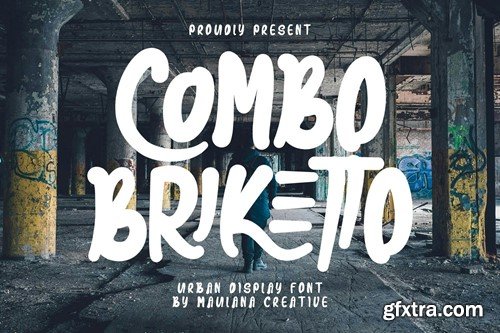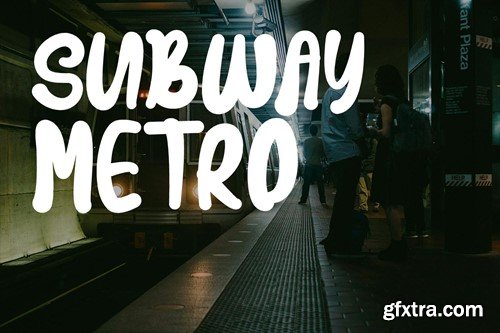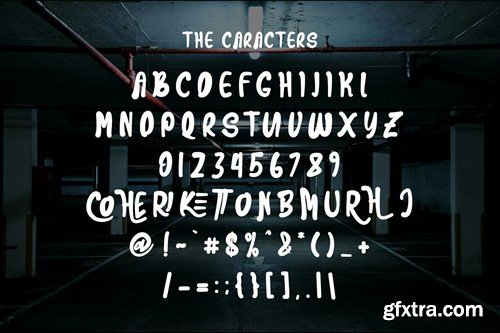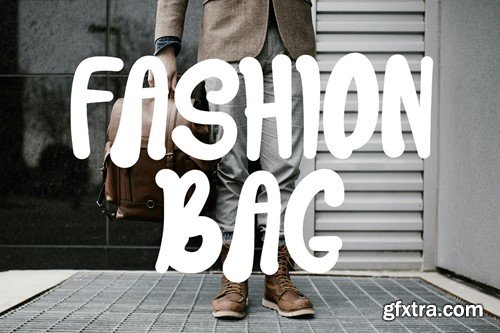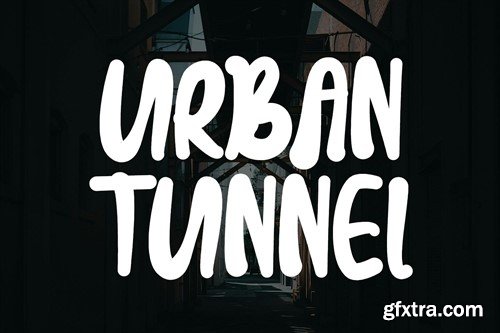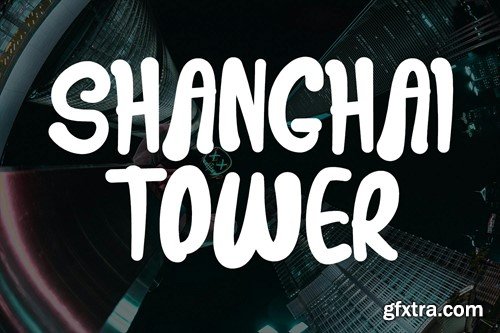
Combo Briketto Urban Display Font
Combo Briketto display font. Heavy stroke, fun character with a bit of ligatures. To give you an extra creative work. Combo Briketto display font support multilingual more than 100+ language. This font is good for logo design, Social media, Movie Titles, Books Titles, a short text even a long text letter and good for your secondary text font with script or serif. Make a stunning work with Combo Briketto display font. What you get: – Combo Briketto (OTF) – Combo Briketto (TTF) – Combo Briketto (WOFF) Cheers, Maulana Creative